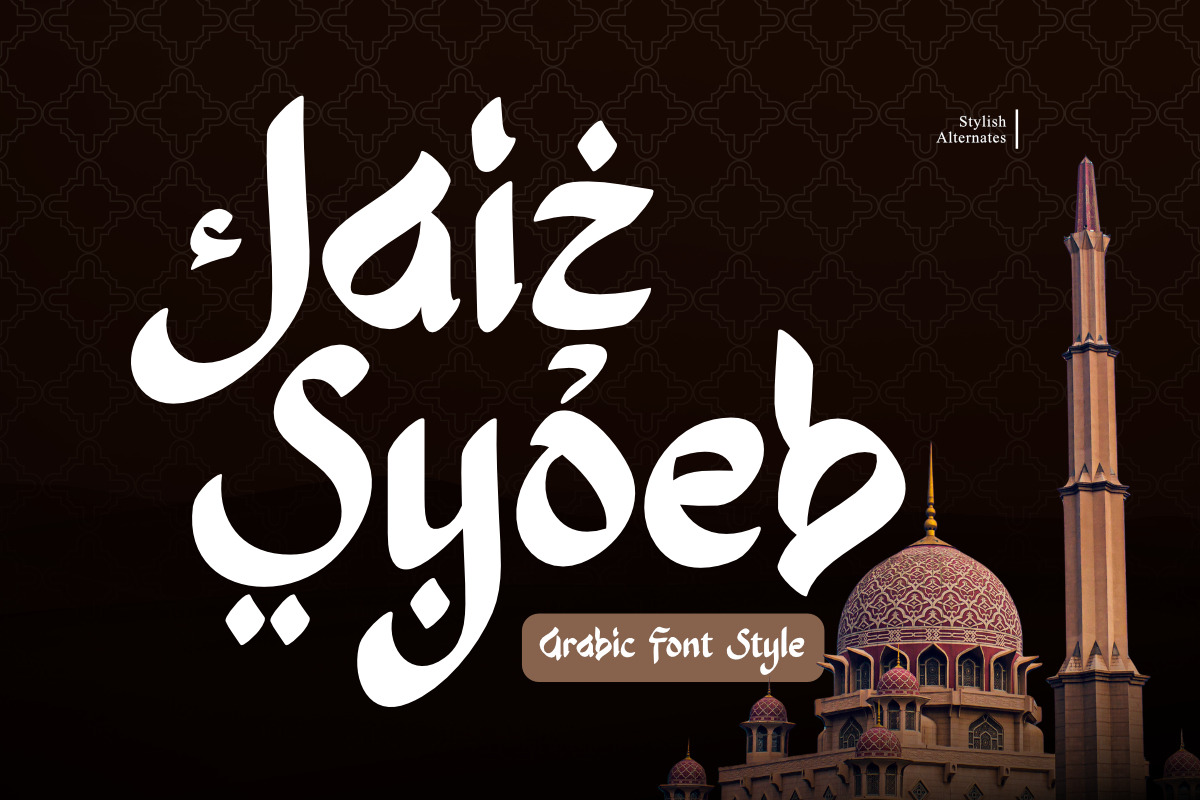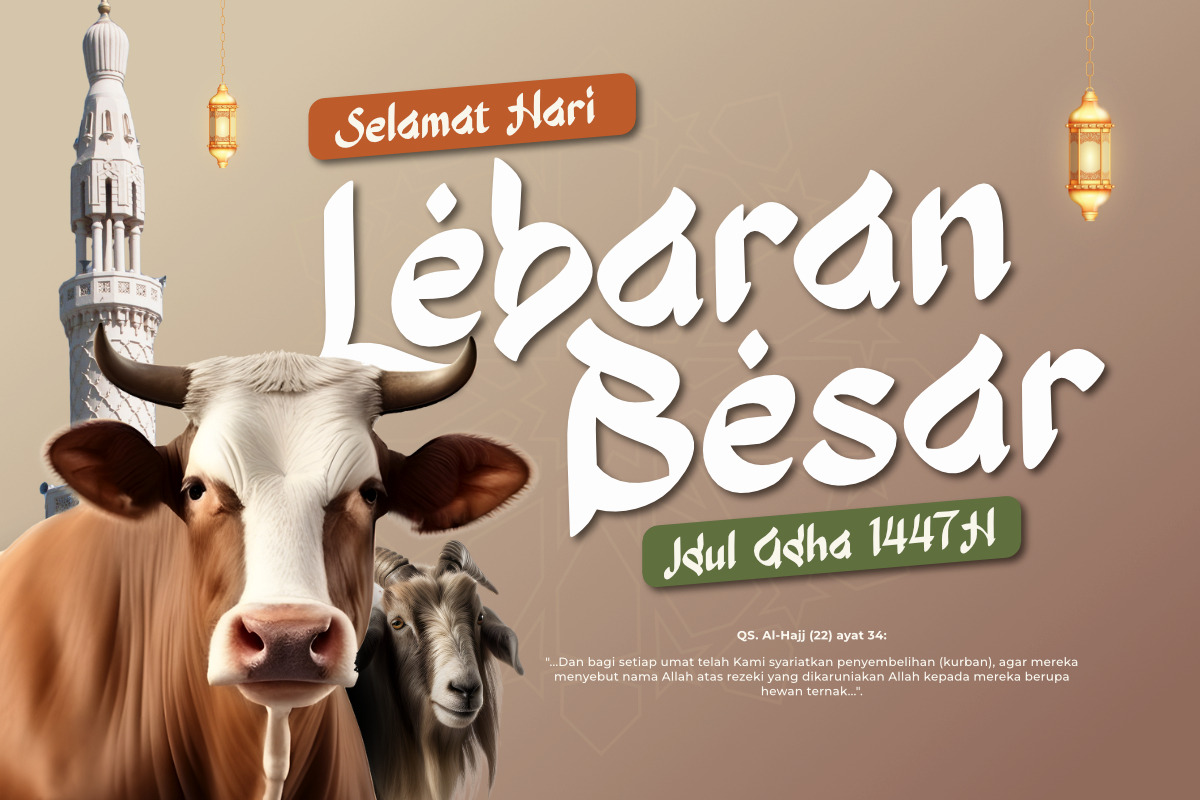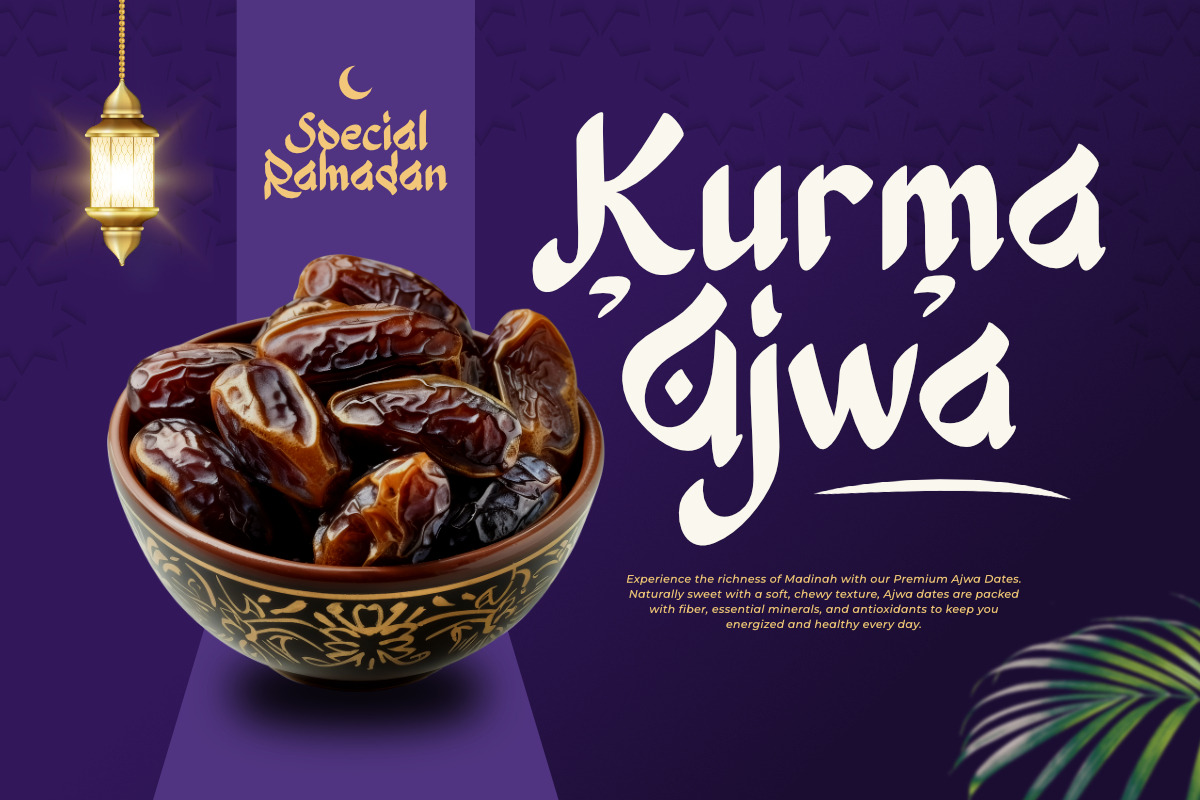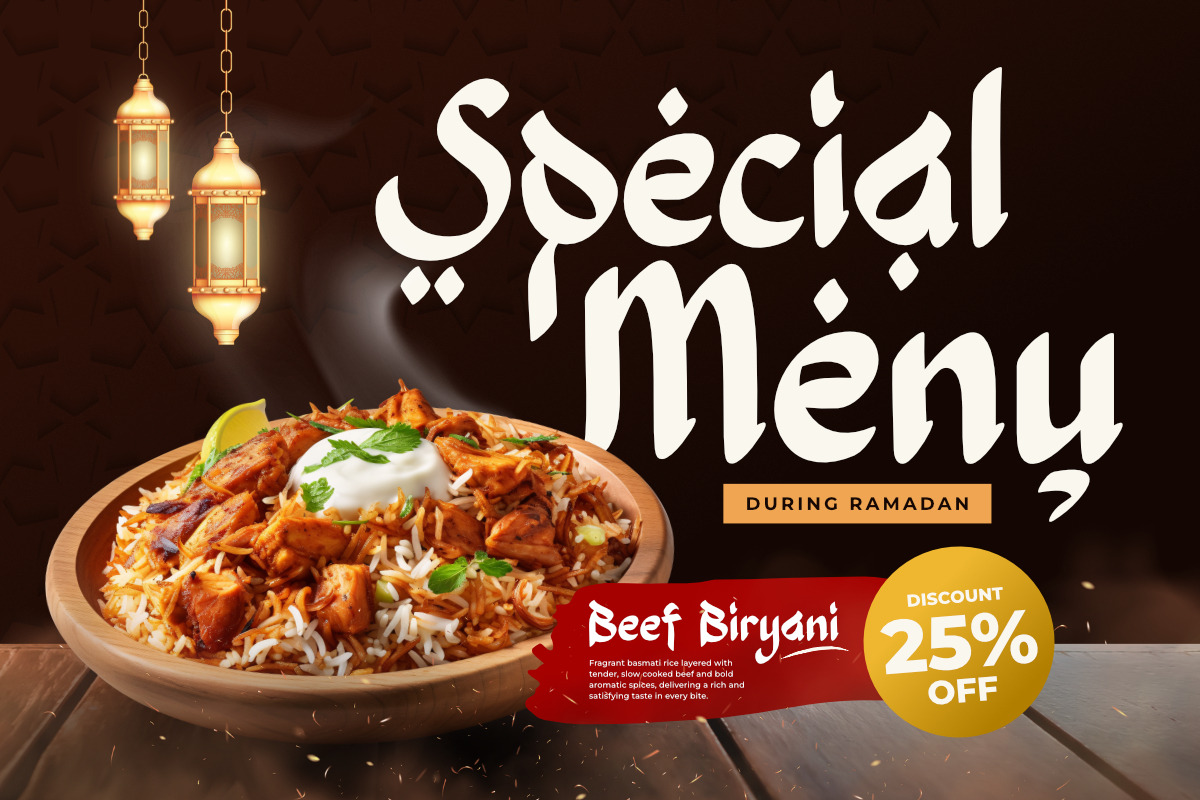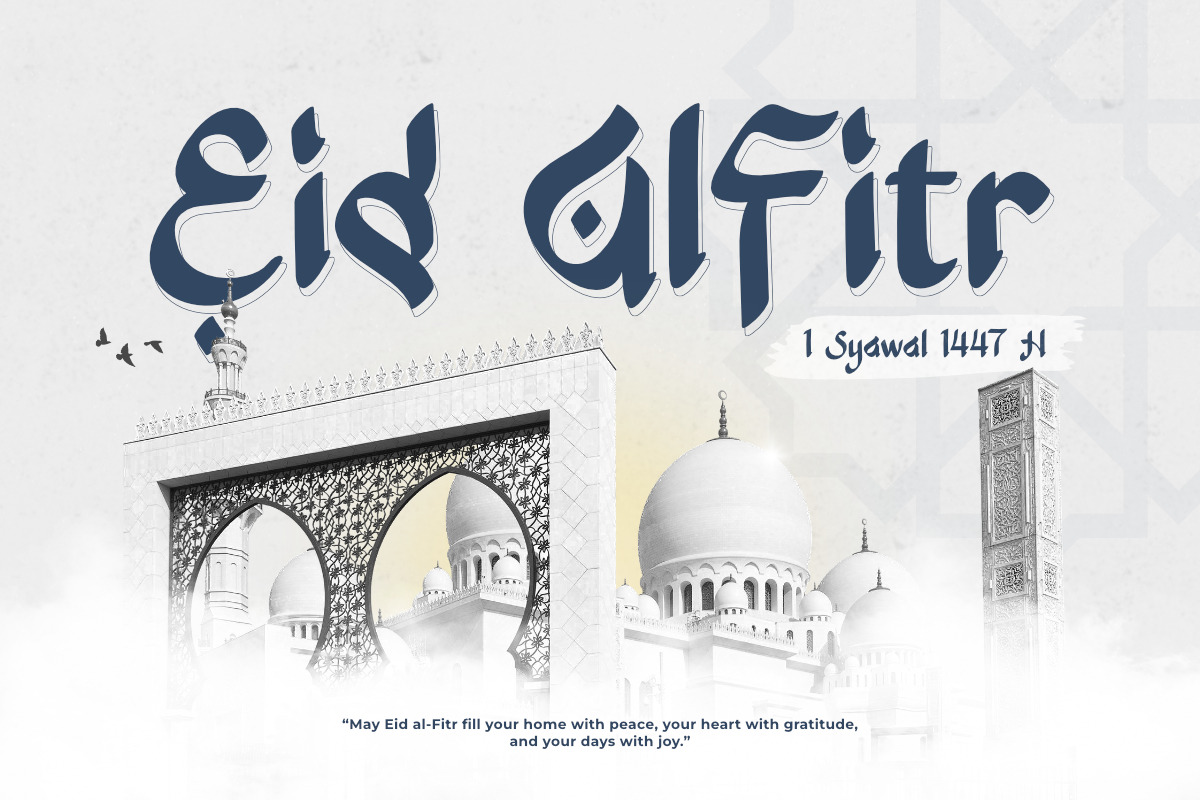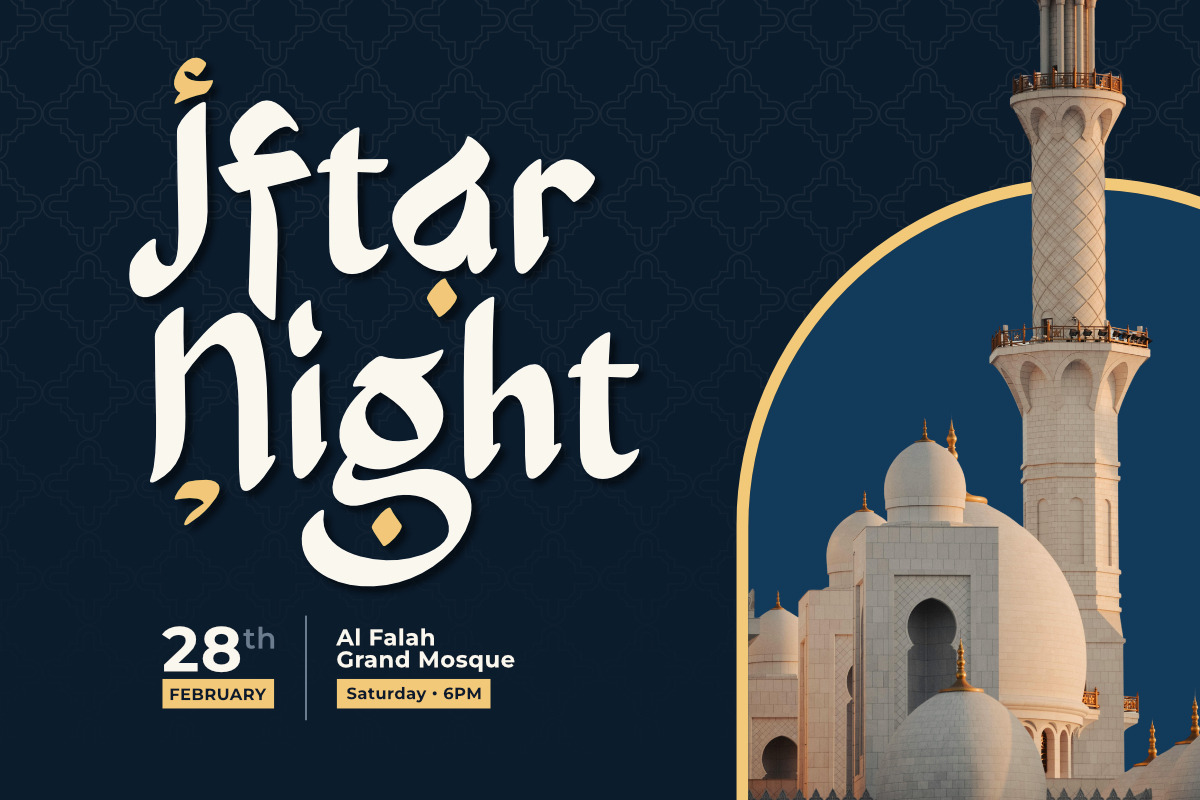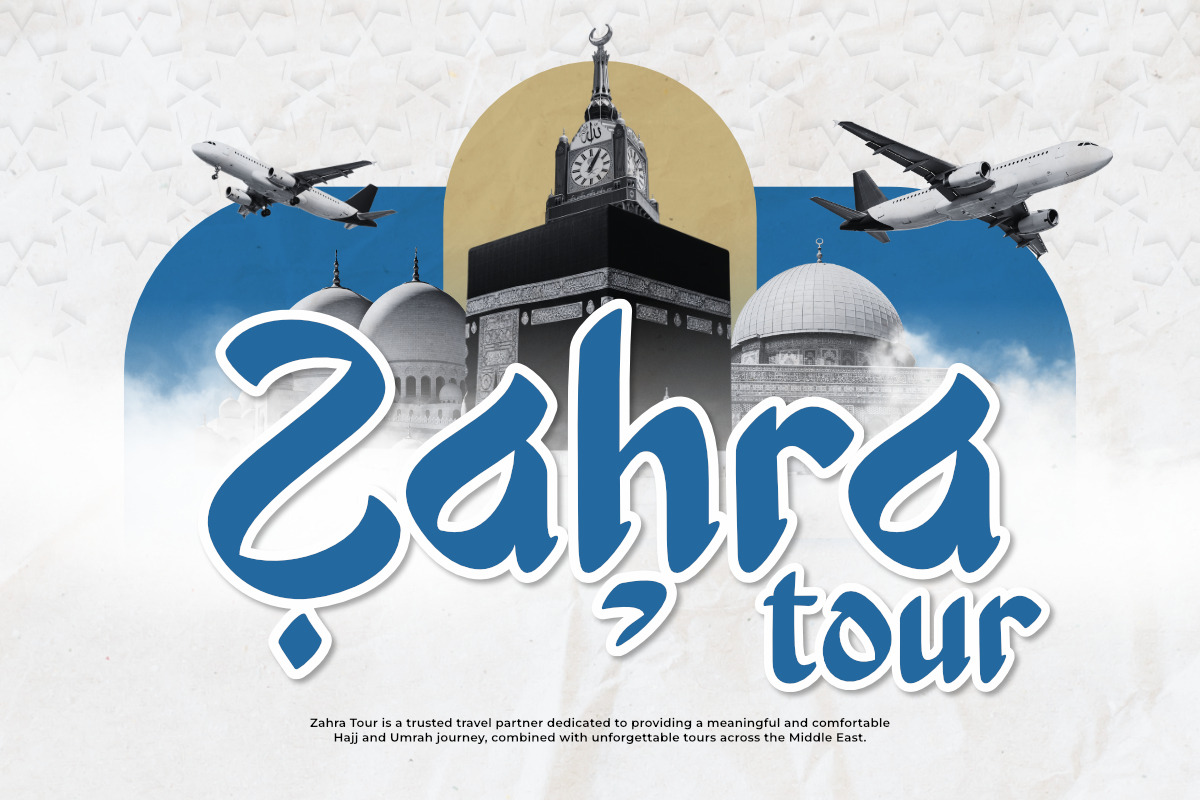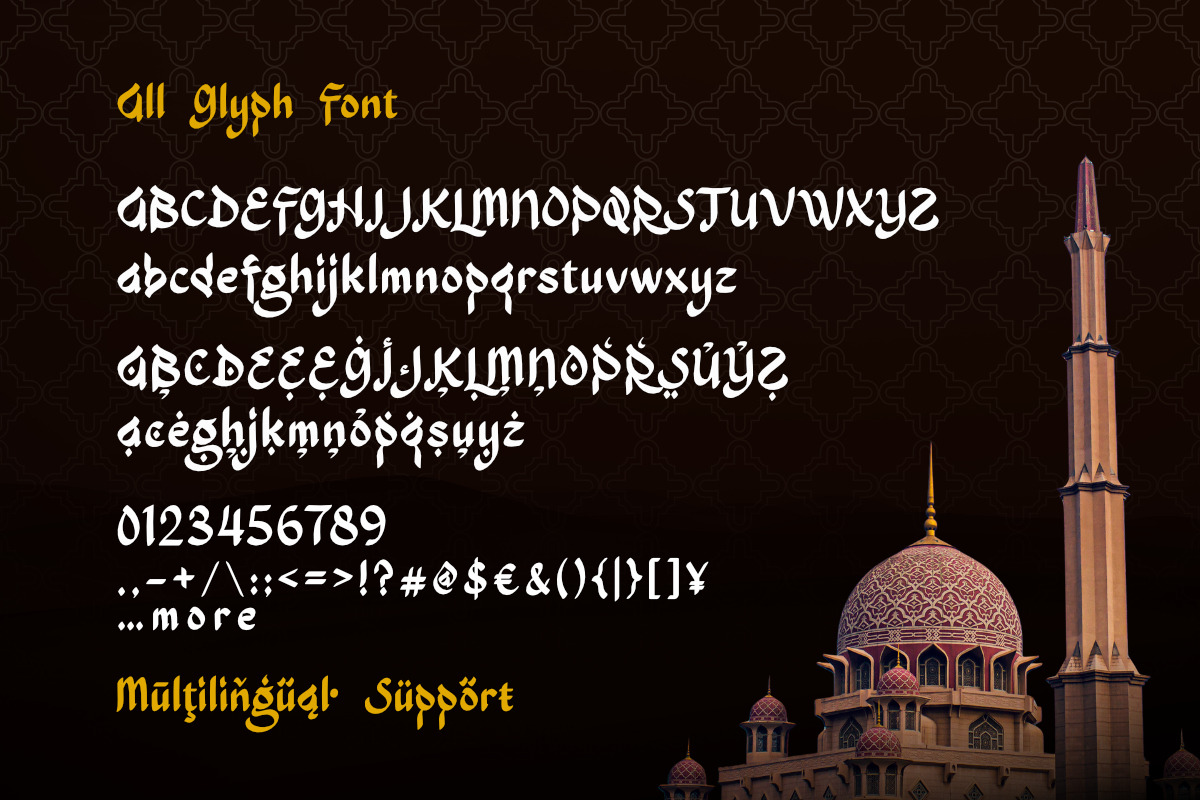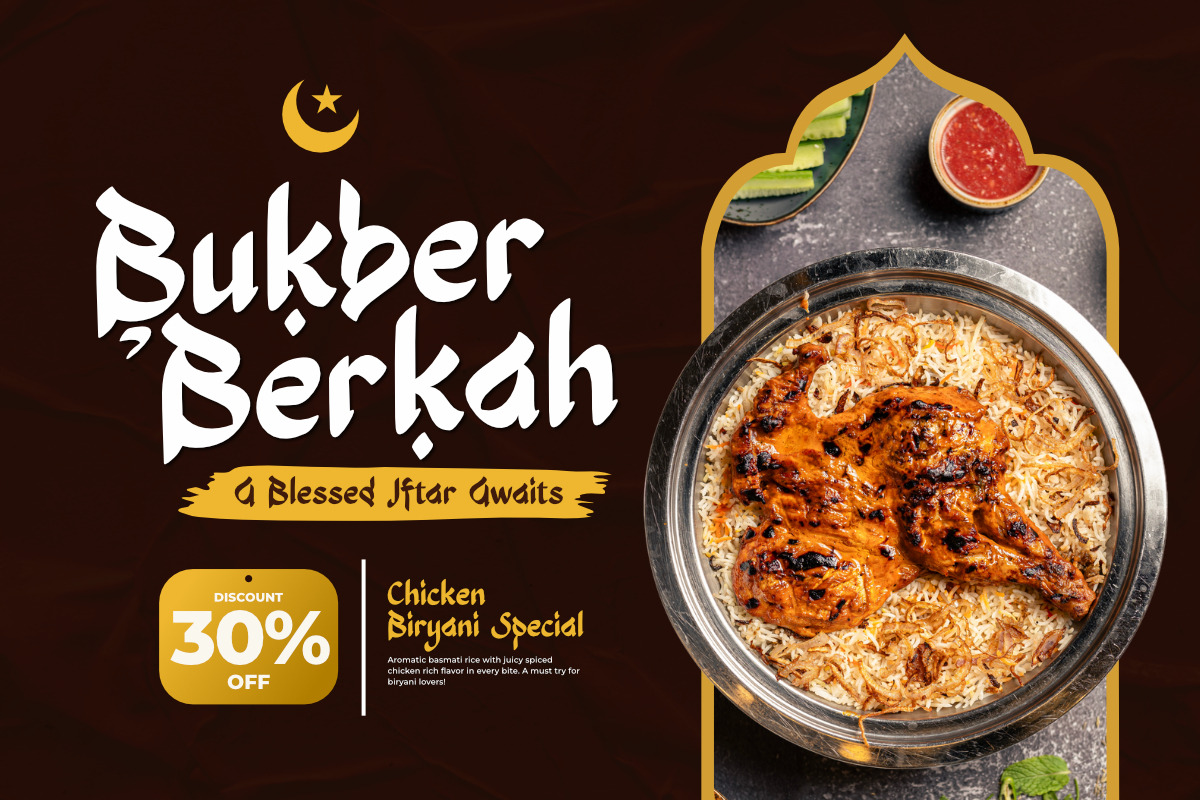
Jaiz Syoeb - Arabic Font Style
Jaiz Syoeb is a modern Arabic Font Style typeface designed to deliver elegance, spiritual depth, and a strong visual character. Inspired by the art of Arabic calligraphy yet executed with a contemporary touch, this font serves as the perfect aesthetic solution for Ramadan themes, Eid celebrations, and various forms of Islamic Branding that require a blend of tradition and modernity.
This typeface artistically balances traditional aesthetics with functional design needs through its bold, flowing, yet highly readable letterforms. Its refined visual characteristics make it ideal for logotypes, book cover designs, fashion branding, and even beauty product or halal food promotions that aim to highlight an exclusive, warm, and dignified impression.
Crafted for designers seeking a meaningful and impactful visual identity, Jaiz Syoeb is highly flexible for both digital and print applications. This font helps brands appear more professional and culturally relevant in promoting Islamic events or contemporary commercial campaigns. As an Islamic Display Font, Jaiz Syoeb is ready to elevate your design work into a beautiful visual statement rich with heritage values.
- Multilingual Support: Fully supports 85+ languages, including: Afrikaans, Albanian, Asu, Basque, Bemba, Bena, Breton, Catalan, Chiga, Cornish, Croatian, Czech, Danish, Dutch, Embu, English, Esperanto, Estonian, Filipino, Finnish, French, Friulian, Galician, Gusii, Hungarian, Indonesian, Irish, Italian, Kabuverdianu, Kalenjin, Kamba, Kikuyu, Kinyarwanda, Latvian, Lithuanian, Lower Sorbian, Luo, Luxembourgish, Luyia, Machame, Makhuwa-Meetto, Makonde, Malagasy, Maltese, Manx, Meru, Morisyen, North Ndebele, Norwegian Bokmål, Norwegian Nynorsk, Nyankole, Oromo, Polish, Portuguese, Quechua, Romanian, Romansh, Rombo, Rundi, Rwa, Samburu, Sango, Sangu, Scottish Gaelic, Sena, Serbian, Shambala, Shona, Slovak, Slovenian, Soga, Somali, Spanish, Swahili, Swedish, Swiss German, Taita, Teso, Turkish, Upper Sorbian, Uzbek (Latin), Volapük, Vunjo, Walser, Zulu.